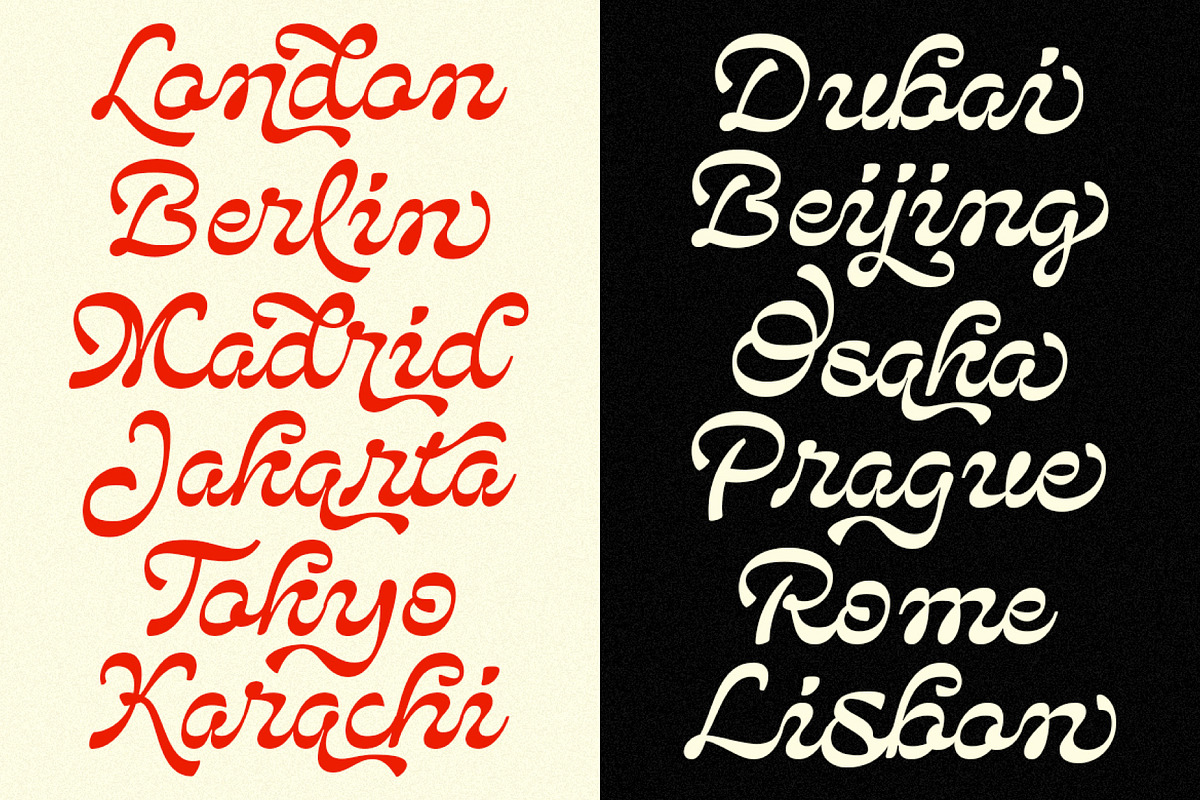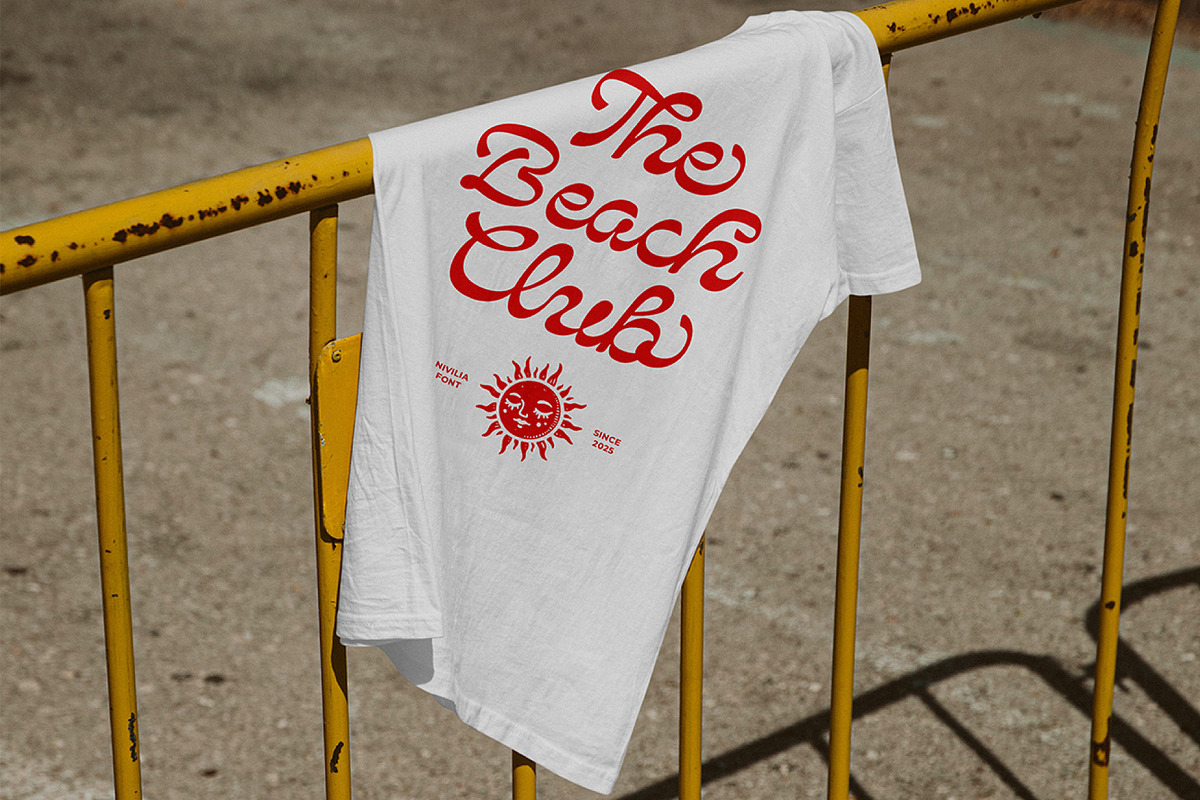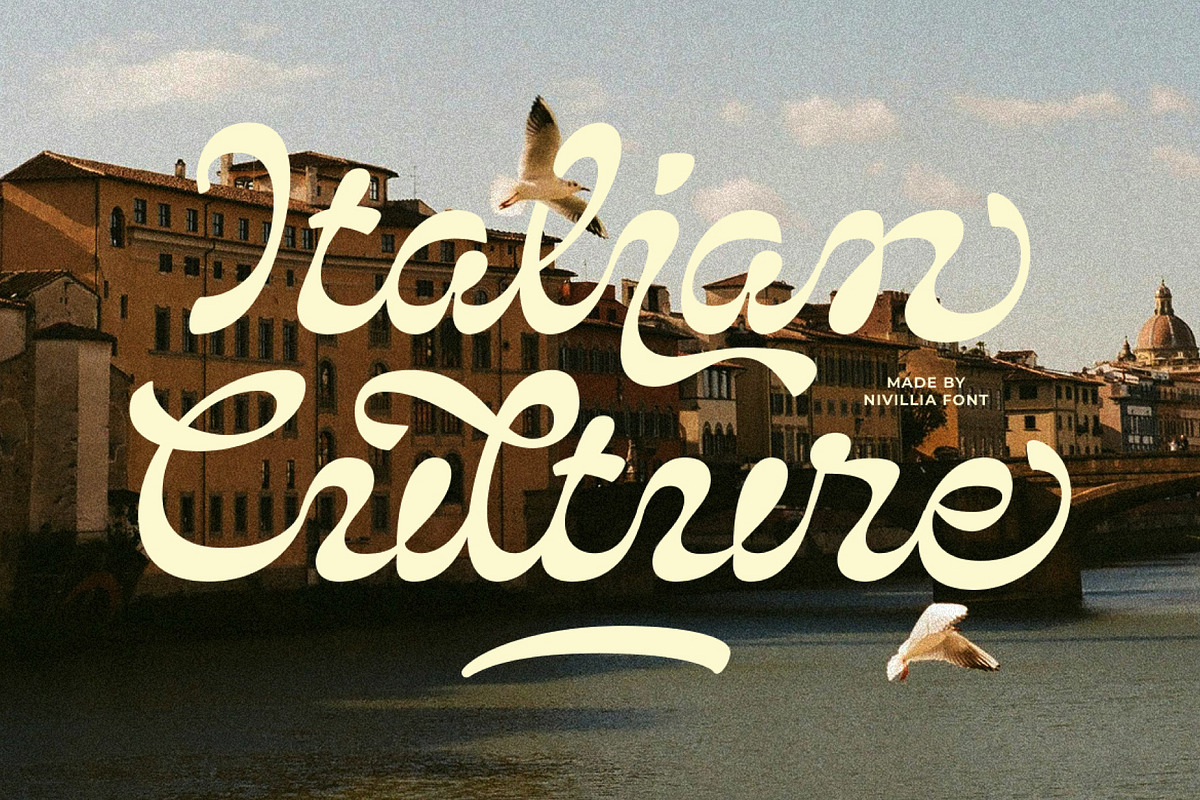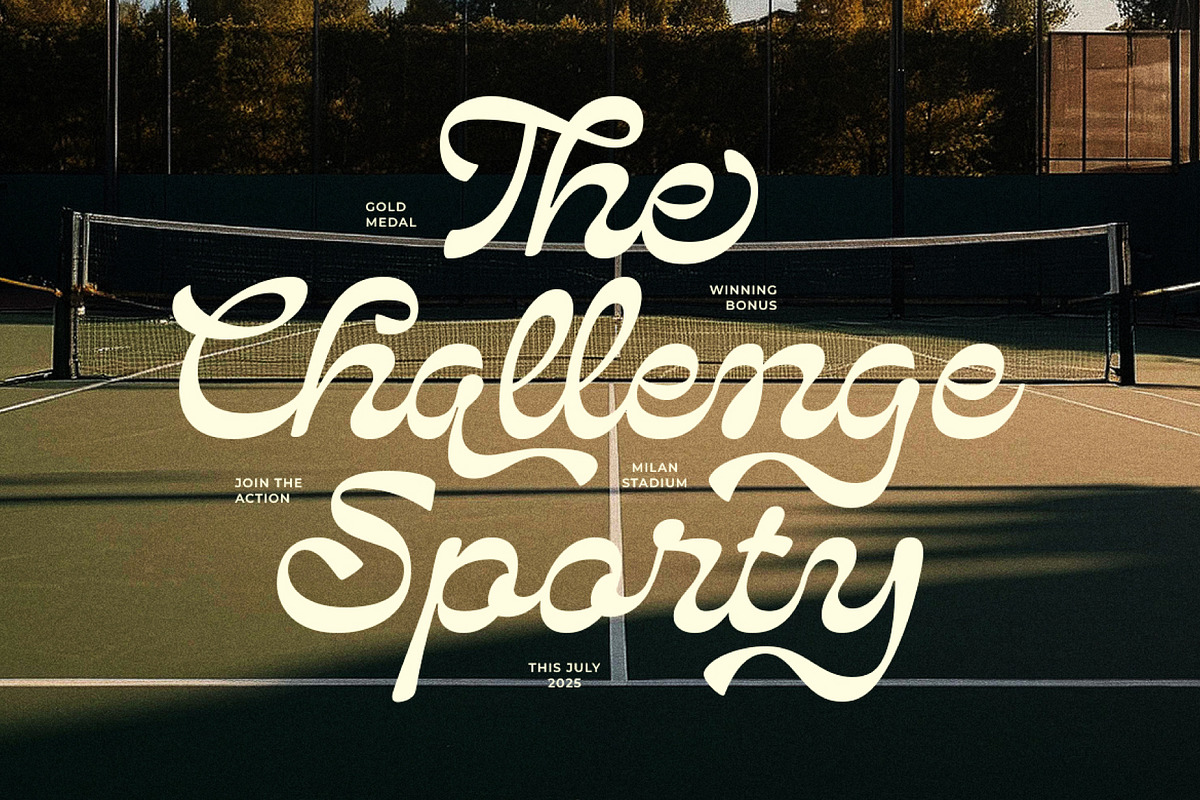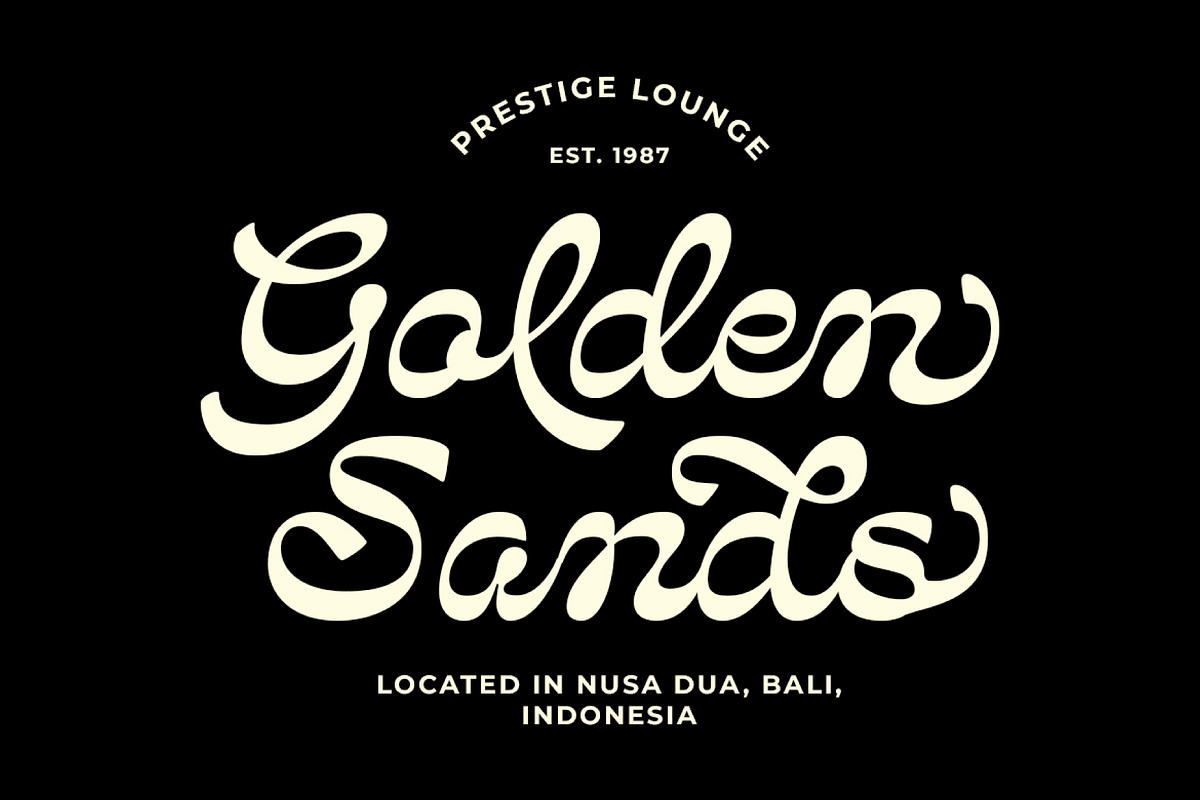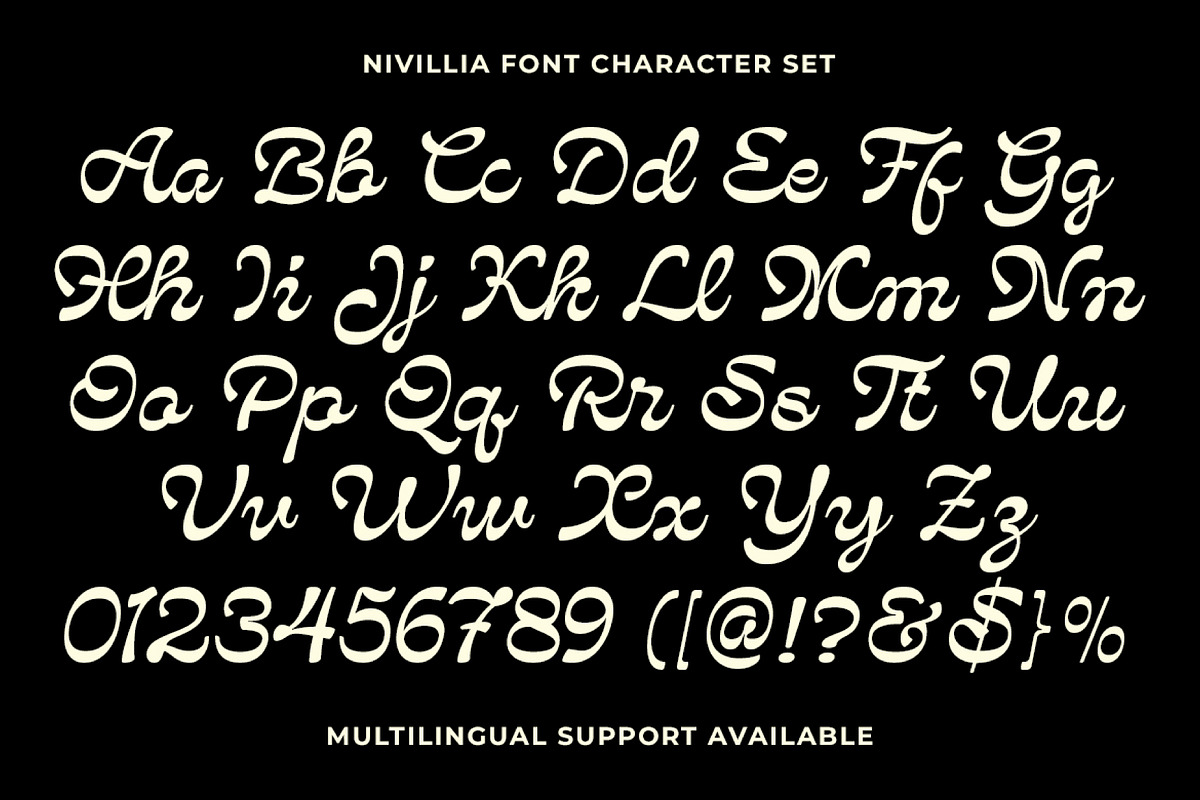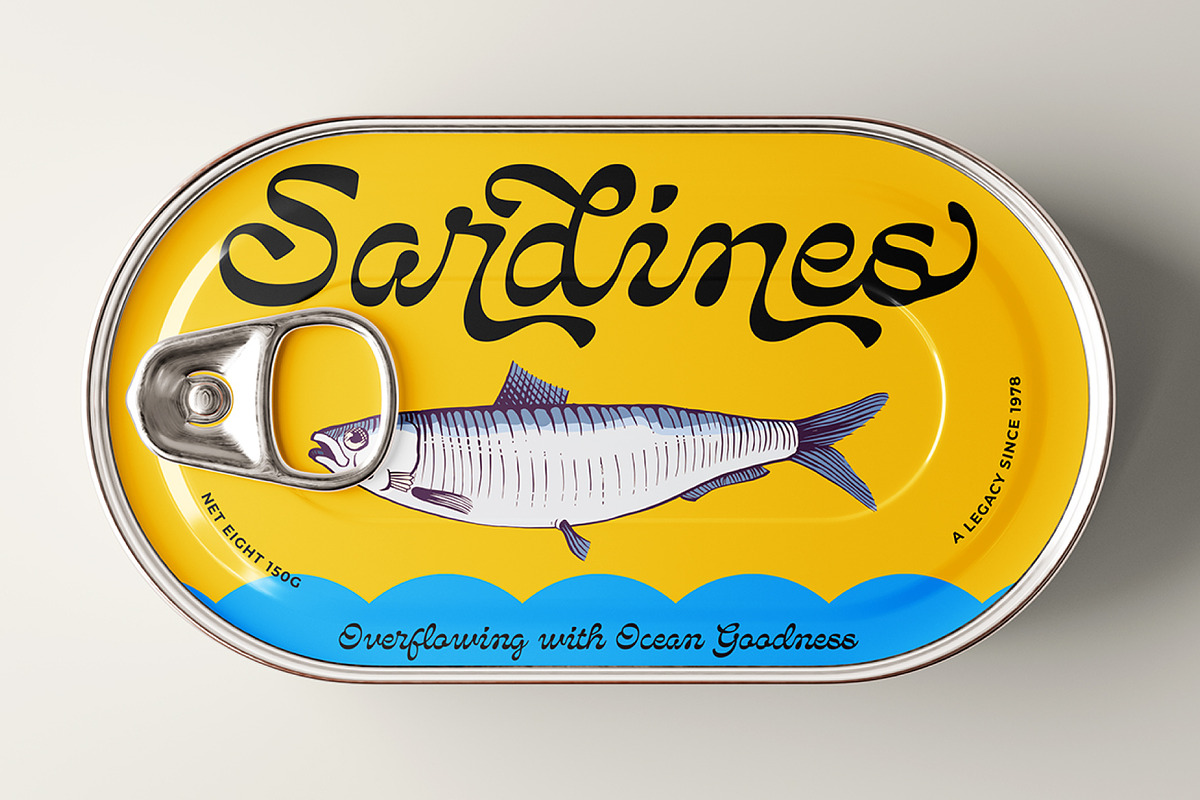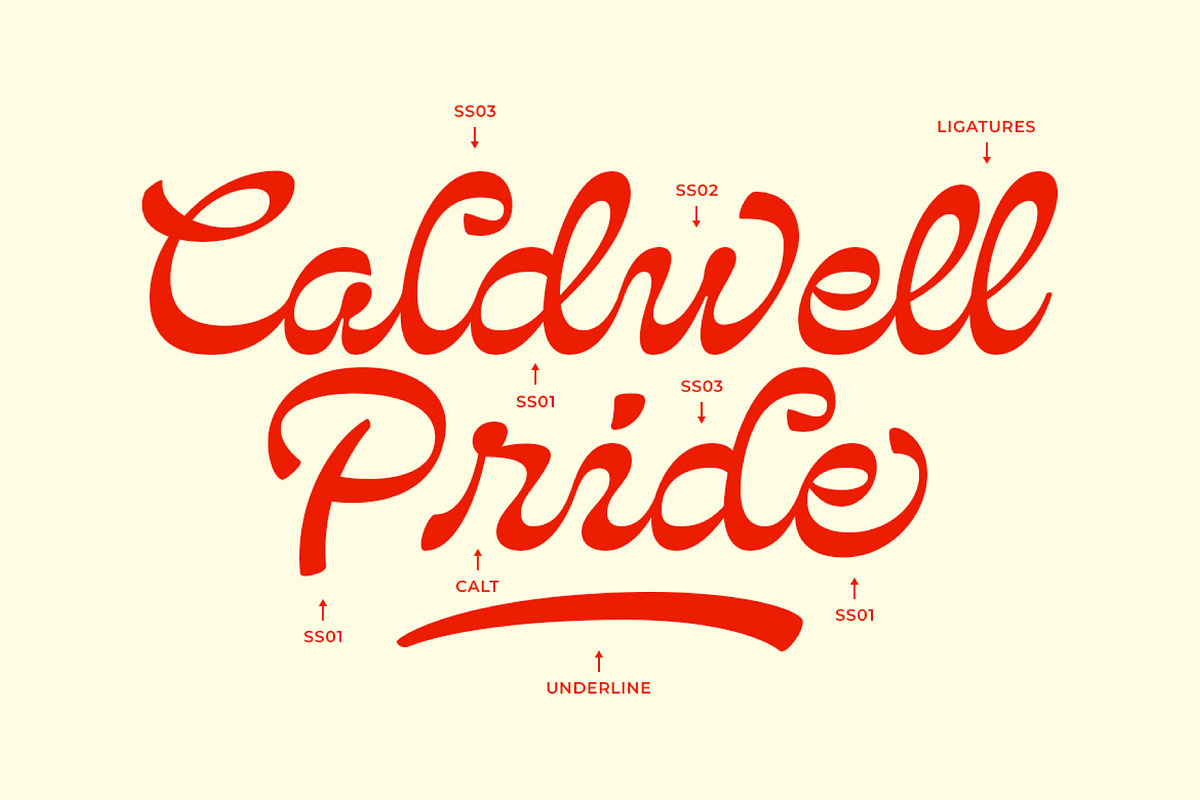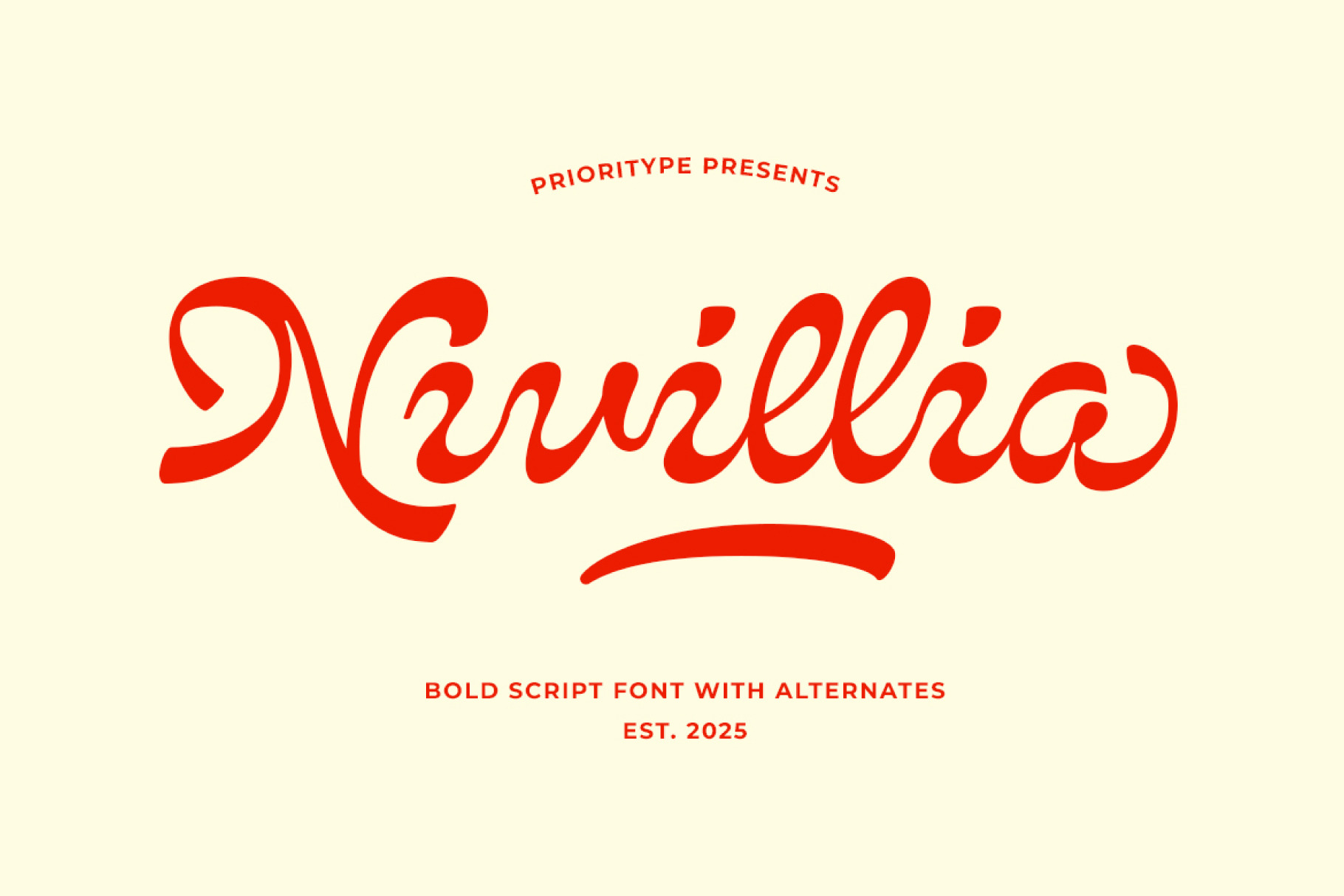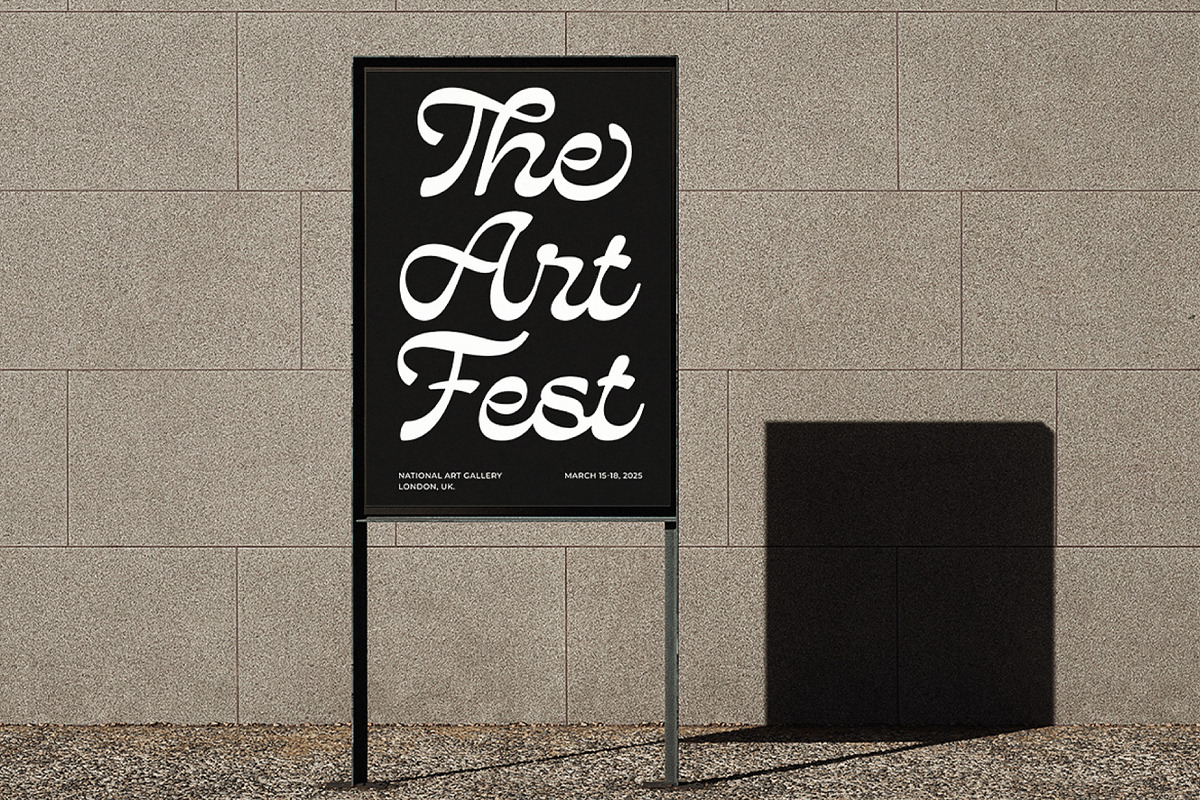
Nivillia - Bold Script Font
Nivillia is a bold script font that combines elegance and charm, perfect for logos, branding, and creative designs. With its smooth curves and stylish flow, Nivillia effortlessly adds a touch of class to modern and timeless aesthetics.
- Features: Uppercase, Lowercase, Numeral, Punctuation, Multilingual, Alternates & Ligatures.